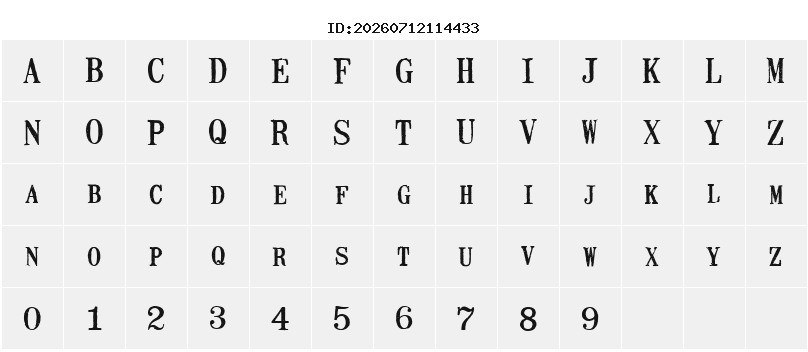
• Font Name: Mailart Rubberstamp
• Full Font Name: Mailart Rubberstamp Regular
• Copyright: © 2004, 2013 www.k-type.com • The Mailart Rubberstamp fonts are derived from the individually rubber-stamped letters on printed and collaged envelopes received from mailartists, plus the typeface Clarendon Condensed.
• Designer: Keith Bates